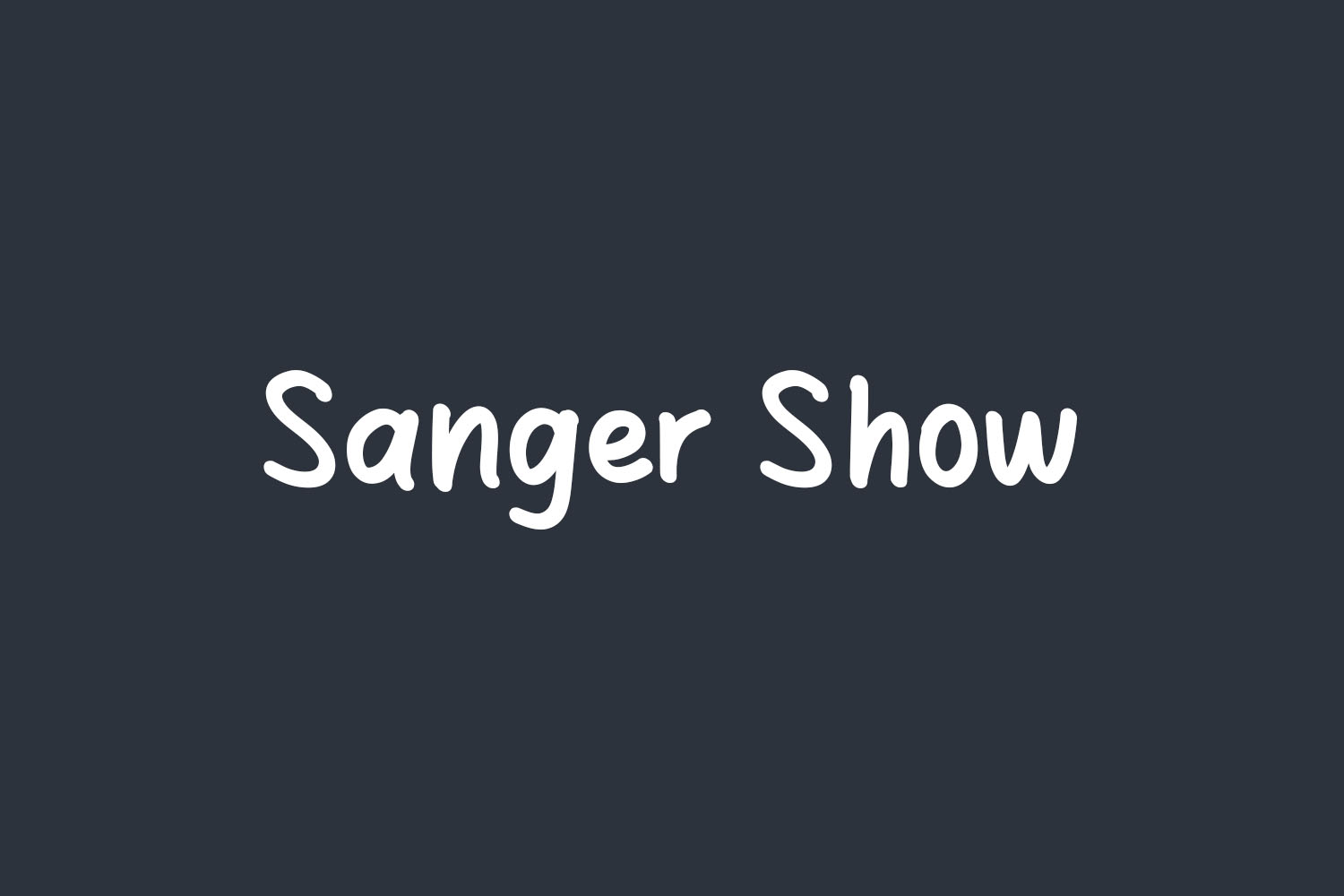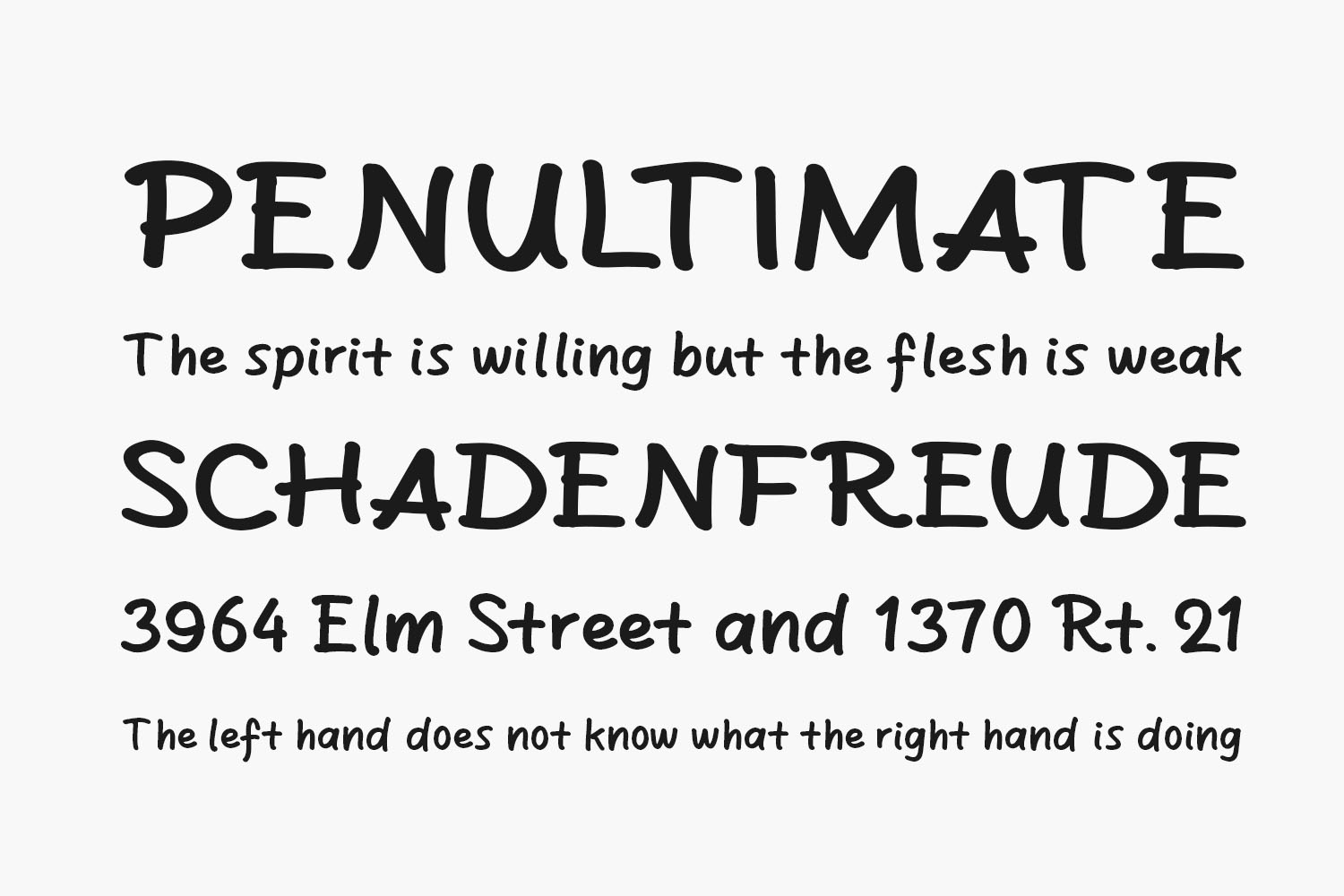
Discover the contemporary elegance of Sanger Show Free Font, an exquisite display font tailored for a myriad of creative applications such as posters, logos, magazines, book covers, banners, and beyond. Elevate your designs with this exceptional font, seamlessly adaptable to a diverse range of projects. Integrate Sanger Show into your creative repertoire and witness the remarkable impact it brings to your ideas, making them truly distinctive. Sanger Show Free Font is free for personal use only. Please purchase the full version for commercial use.